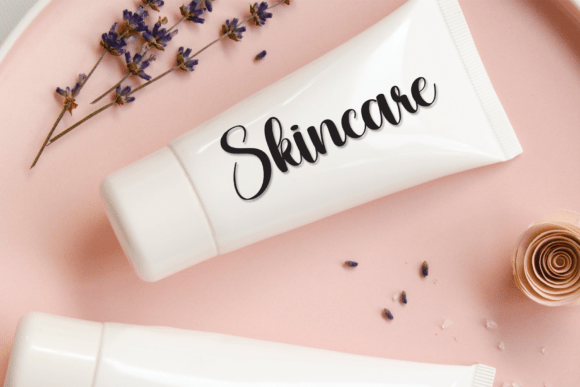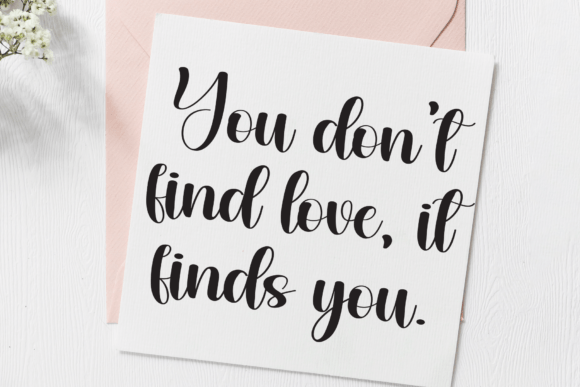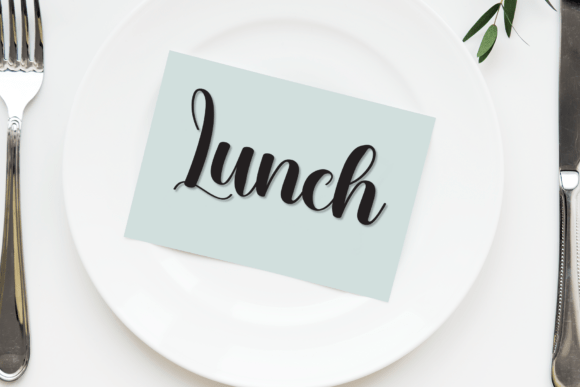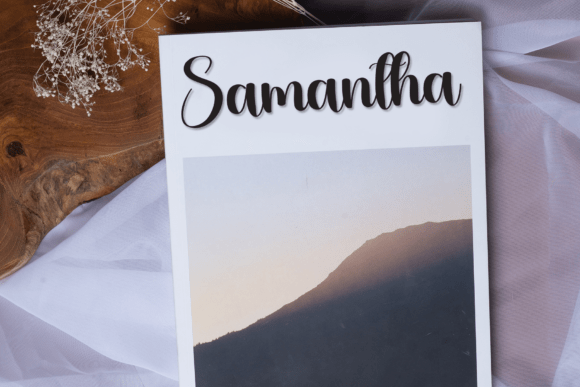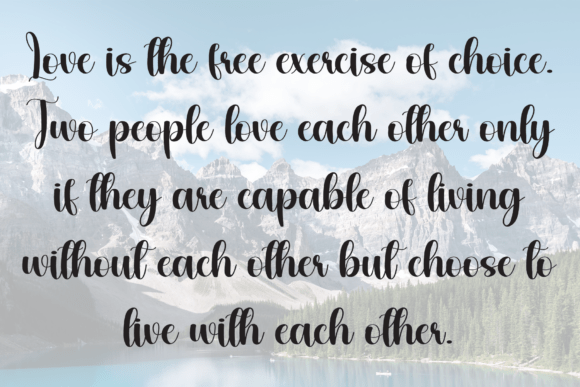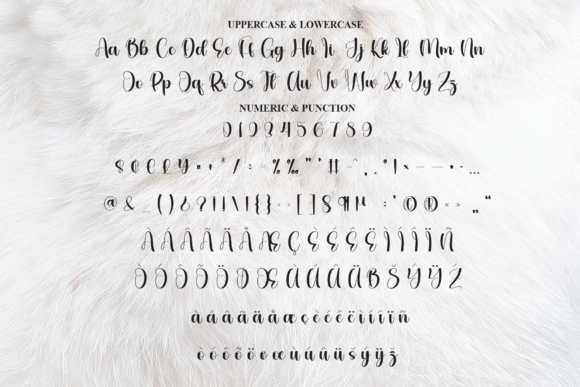
Bulky Font: Add a Touch of Whimsy to Your Designs
Are you tired of using the same old fonts in your designs? Look no further than Bulky Font, a charmingly handwritten display font that adds a soft, endearing touch to any project. With its playful yet elegant vibe, this typeface is perfectly designed to meet your creative needs. In this article, we’ll explore the features and benefits of Bulky Font, and show you how to incorporate it into your next design project.
What is Bulky Font?
Bulky Font is a unique and captivating font that is sure to capture the hearts of designers and crafters alike. Its handwritten style is enriched with a soft, endearing touch that exudes a playful yet elegant vibe. This delightful font is perfect for adding a personal touch to your designs, whether you’re creating wedding invitations, warm-hearted cards, or any other type of project.
Features of Bulky Font
- Handwritten style: Bulky Font features a charmingly handwritten style that adds a touch of personality to your designs.
- Soft and endearing touch: The font’s soft and endearing touch makes it perfect for creating warm and inviting designs.
- Playful yet elegant vibe: Bulky Font’s playful yet elegant vibe makes it suitable for a wide range of design projects, from wedding invitations to children’s party invitations.
- Easy to read: Despite its playful style, Bulky Font is easy to read, making it perfect for use in body text as well as headlines.
Uses of Bulky Font
Bulky Font is a versatile font that can be used in a wide range of design projects, including:
- Wedding invitations: Add a touch of elegance and whimsy to your wedding invitations with Bulky Font.
- Warm-hearted cards: Create heartfelt cards for special occasions, such as birthdays, anniversaries, and holidays.
- Children’s party invitations: Bulky Font’s playful style makes it perfect for creating fun and colorful invitations for children’s parties.
- Branding and packaging: Use Bulky Font to add a personal touch to your brand’s packaging and marketing materials.
Benefits of Using Bulky Font
Using Bulky Font in your designs offers a range of benefits, including:
- Unique and eye-catching designs: Bulky Font’s unique style is sure to grab attention and set your designs apart from the crowd.
- Emotional connection: The font’s soft and endearing touch can help create an emotional connection with your audience.
- Flexibility: Bulky Font can be used in a wide range of design projects, making it a versatile addition to your font library.
Tips for Using Bulky Font
Here are some tips for getting the most out of Bulky Font:
- Use it sparingly: While Bulky Font is a beautiful font, it can be overwhelming if used excessively. Use it sparingly to add emphasis and create visual interest.
- Pair it with other fonts: Experiment with pairing Bulky Font with other fonts to create a unique and visually appealing design.
- Adjust the size and color: Play around with different sizes and colors to find the perfect combination for your design.
Bulky Font is a charmingly handwritten display font that adds a soft, endearing touch to any design project. With its playful yet elegant vibe, this typeface is perfectly designed to meet your creative needs. Whether you’re a designer or crafter, Bulky Font is a versatile and eye-catching font that is sure to capture the hearts of your audience. So why not give it a try and see the joy of personal touch it can bring to your next project?